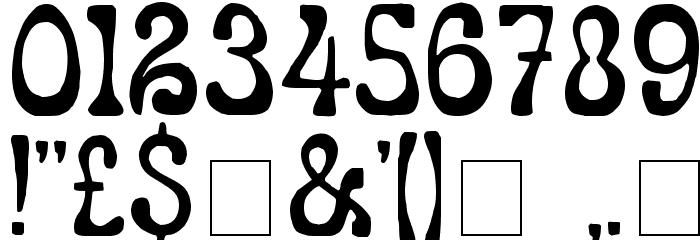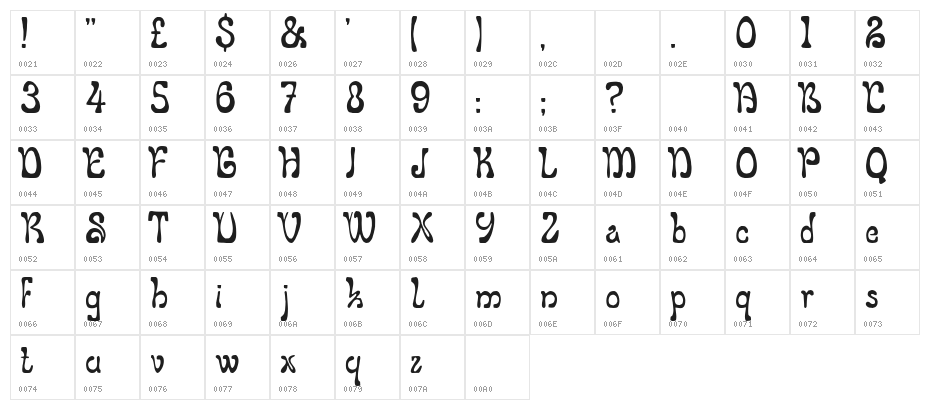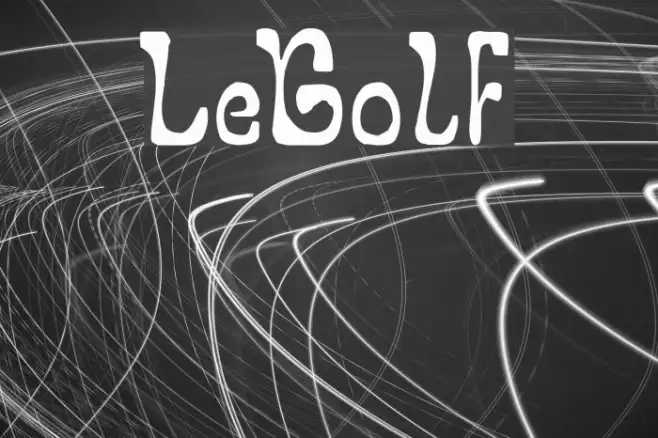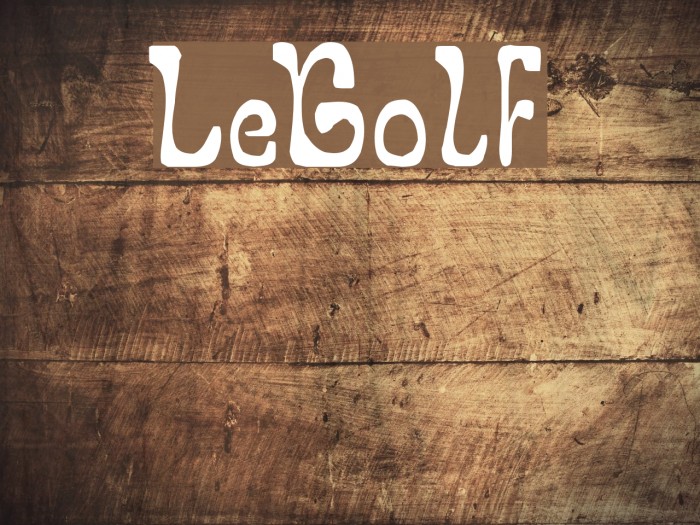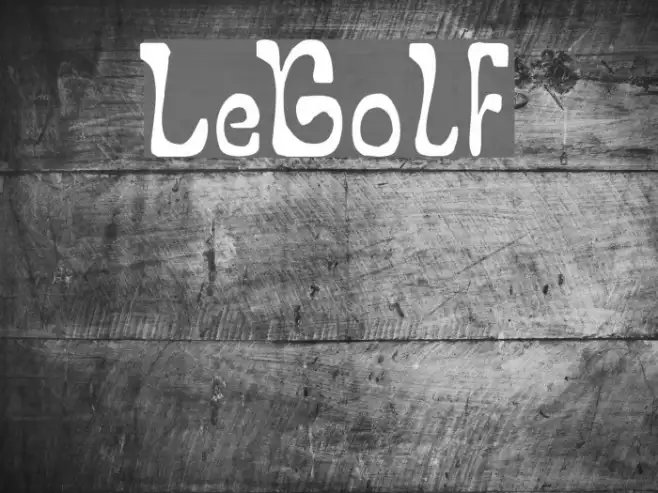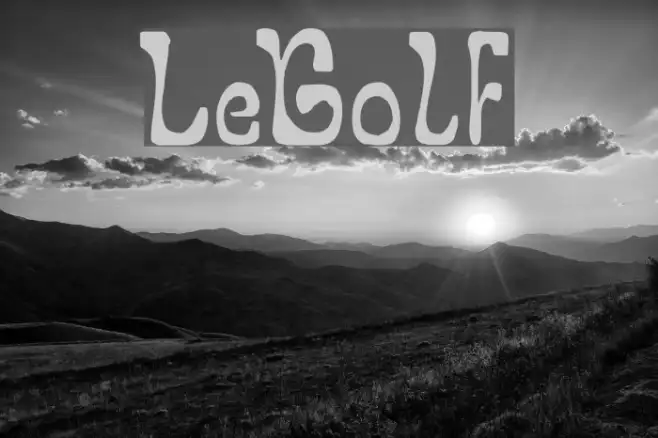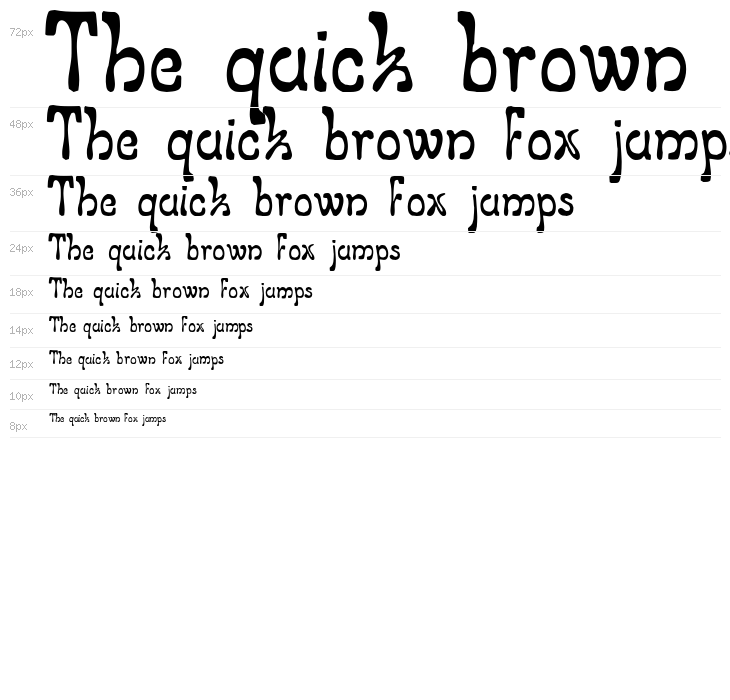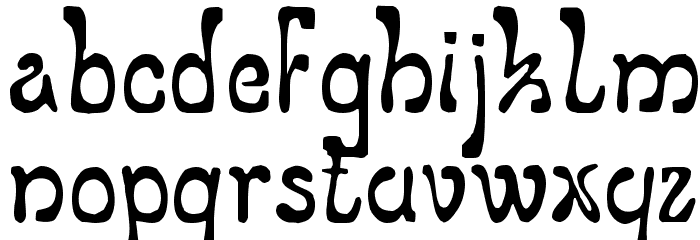
LeGolf Font
LeGolf Description
This font features a playful and whimsical design with a unique, hand-drawn appearance. The characters are bold and rounded, with a slightly uneven baseline that adds to its charm. The uppercase letters have a strong presence, while the lowercase letters maintain a consistent style with slight variations in stroke width. The numbers and special characters follow the same playful aesthetic, making the font suitable for creative and informal projects. The overall look is both eye-catching and approachable, perfect for designs that require a touch of personality.
| Overall Style | Whimsical, Playful |